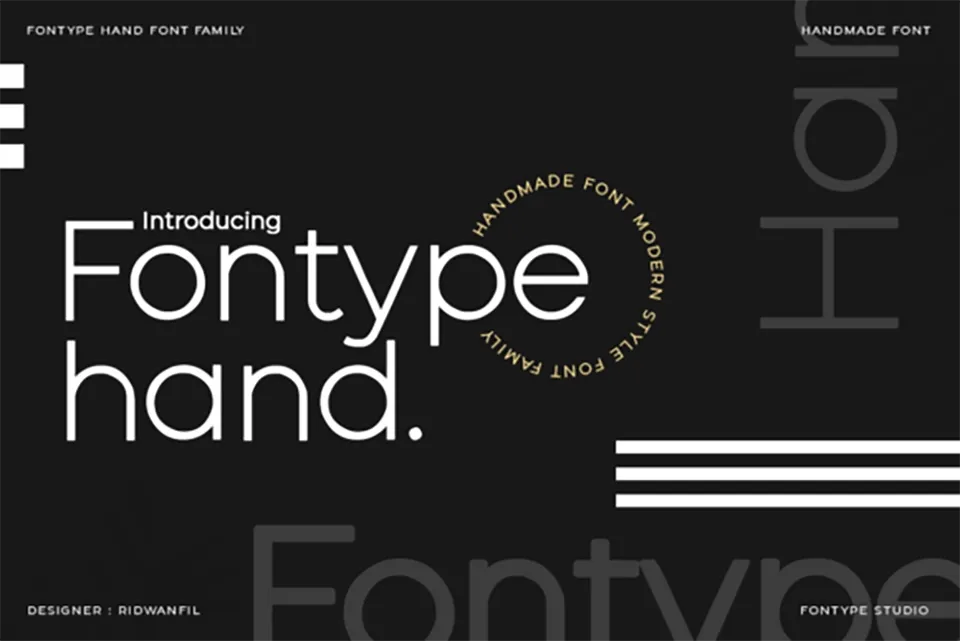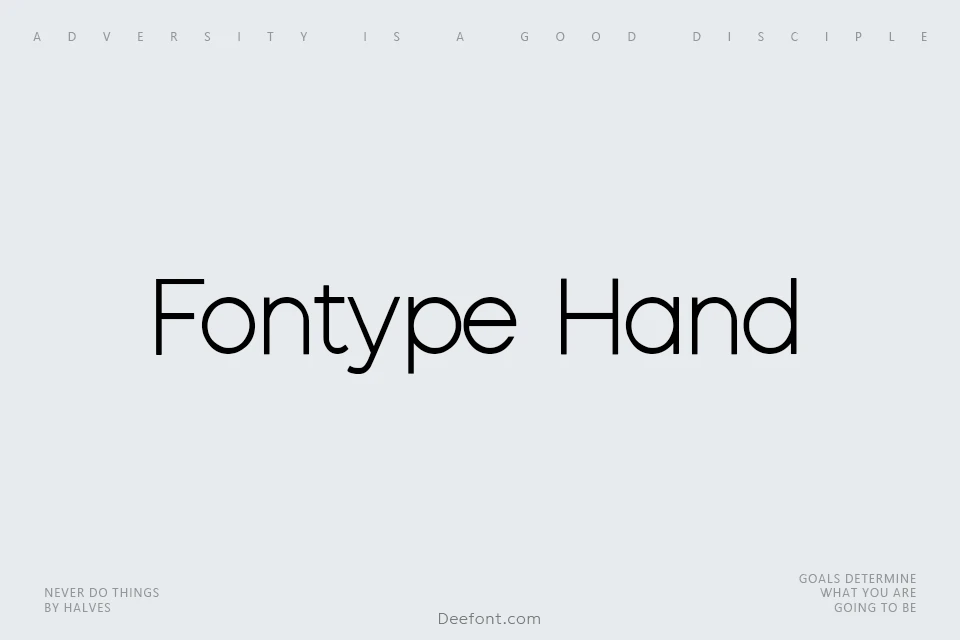
Fontype Hand Font
Fontype Hand Font is a strong and modern sans serif font with casual charm that makes it appear wonderfully down-to-earth, readable and incredibly versatile. This handmade-style typeface features hand-sketched elements that create a more natural appearance, making it look unique while maintaining modern sophistication. Fontype Hand will look outstanding in any context, whether it’s being used on busy backgrounds or as a standalone headline, making it perfect for logo design, marketing materials, book typography, and various branding applications.